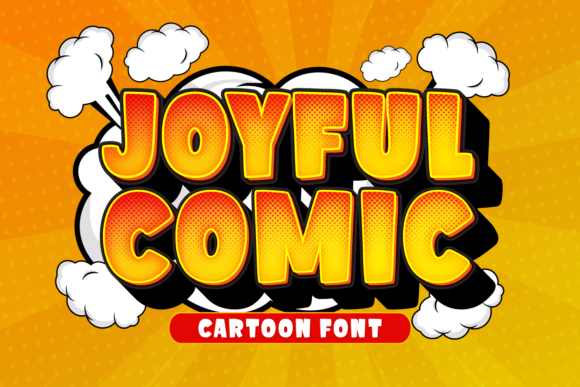
In a world where typography reigns supreme, meet Joyful Comic Font – the ultimate display font that exudes joy and playfulness in every character. Crafted by the creative masterminds at Creative Fabrica Fonts, this delightful font is the perfect choice for those seeking to add a touch of whimsy and charm to their designs.
Journey into the world of Joyful Comic, where each letter dances with a carefree spirit, inviting you to create outstanding typography designs that ignite imagination. Its chubby and cartoon-inspired characters bring a sense of warmth and lightheartedness to any project, making it an ideal choice for playful branding, cheerful invitations, engaging social media graphics, and captivating website designs.
With its friendly look and charming personality, Joyful Comic Font has the power to transform your designs into enchanting visual feasts. Embrace the magic of this display font and watch as your words come alive, captivating audiences with their cheerful and playful nature.
Let Joyful Comic Font be your muse as you embark on a creative journey, bringing joy and laughter to the digital world. Its versatility knows no bounds, lending itself seamlessly to a myriad of projects, from playful posters and eye-catching logos to vibrant packaging and whimsical illustrations.
Experience the Joyful Comic Font phenomenon and let your creativity soar to new heights. Its user-friendly nature and boundless charm make it accessible to both seasoned designers and those just starting their typographic adventure. Embrace the joy and playfulness of Joyful Comic Font, and let your designs radiate with happiness and cheer.